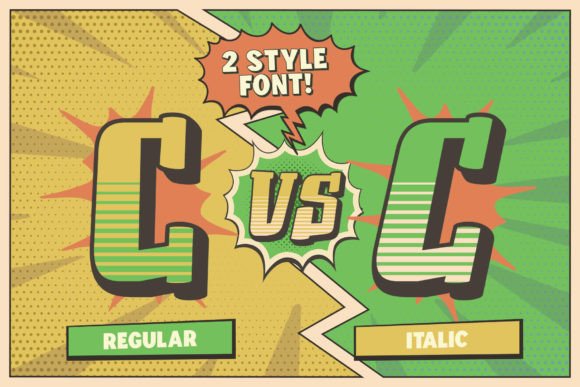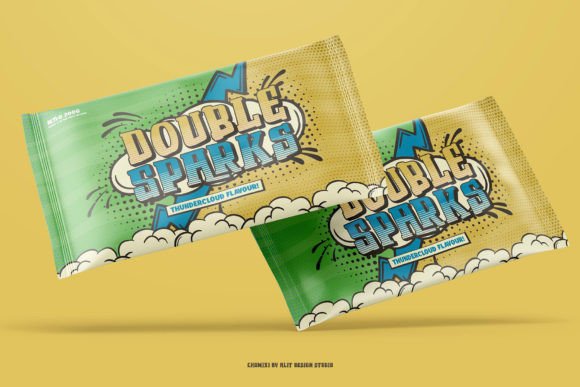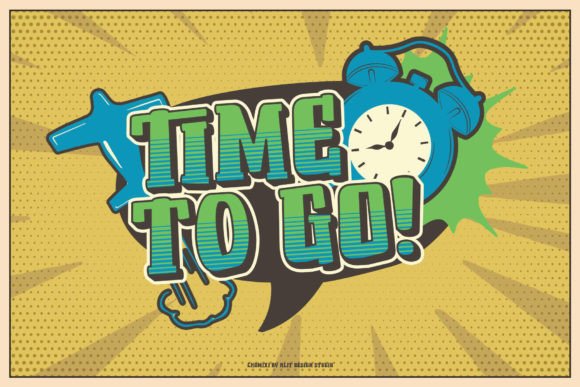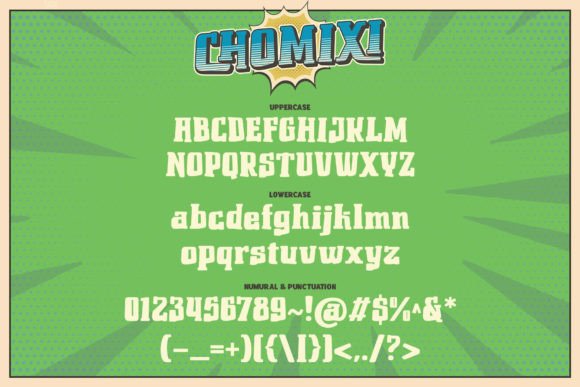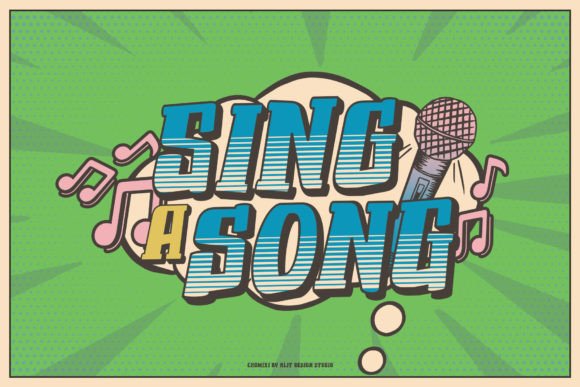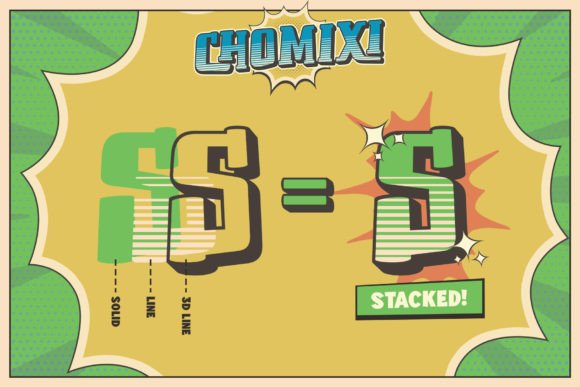
Introduction to Chomoxi Font
Chomoxi is a fun, playful, and bold comic display font with a unique style.
Get inspired by its unique charm, and turn any design project into a true standout This font is PUA encoded which means you can access all the glyphs and swashes with ease.